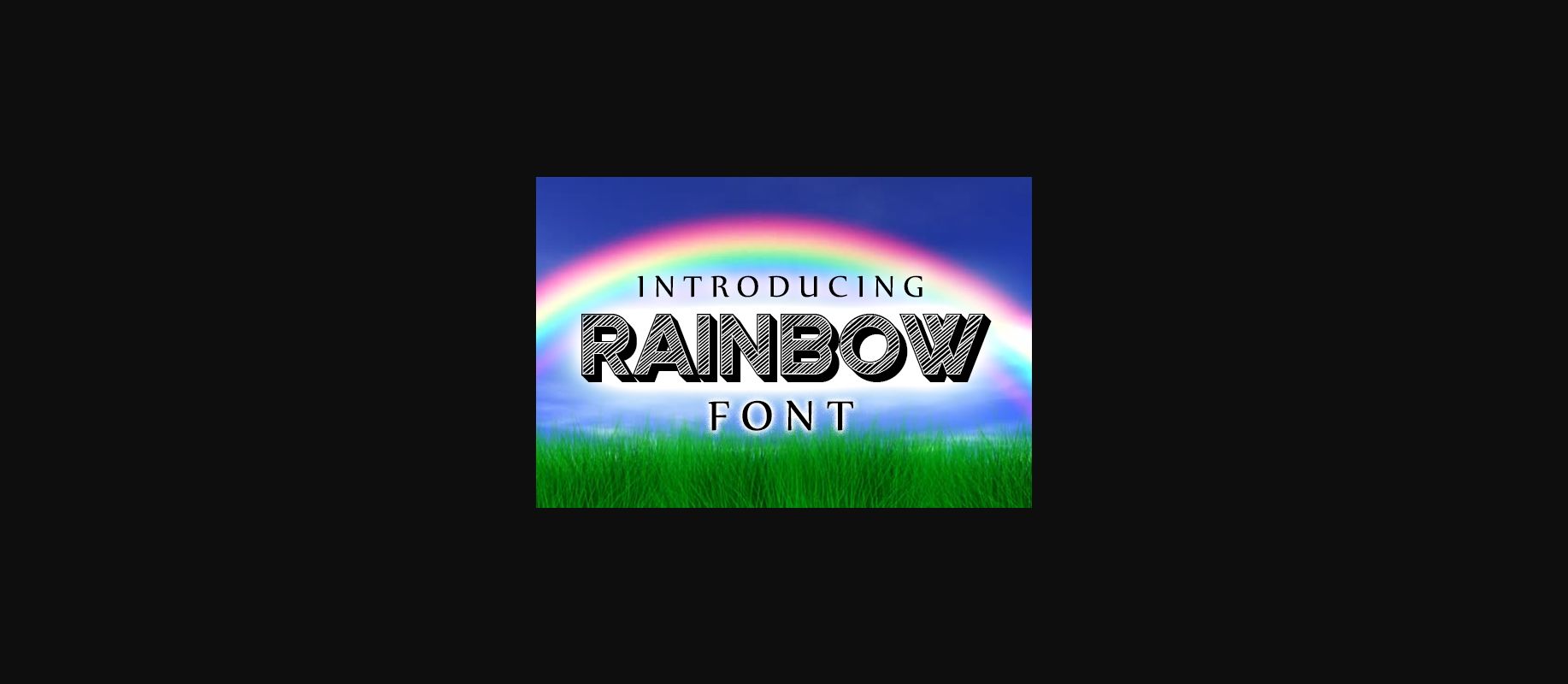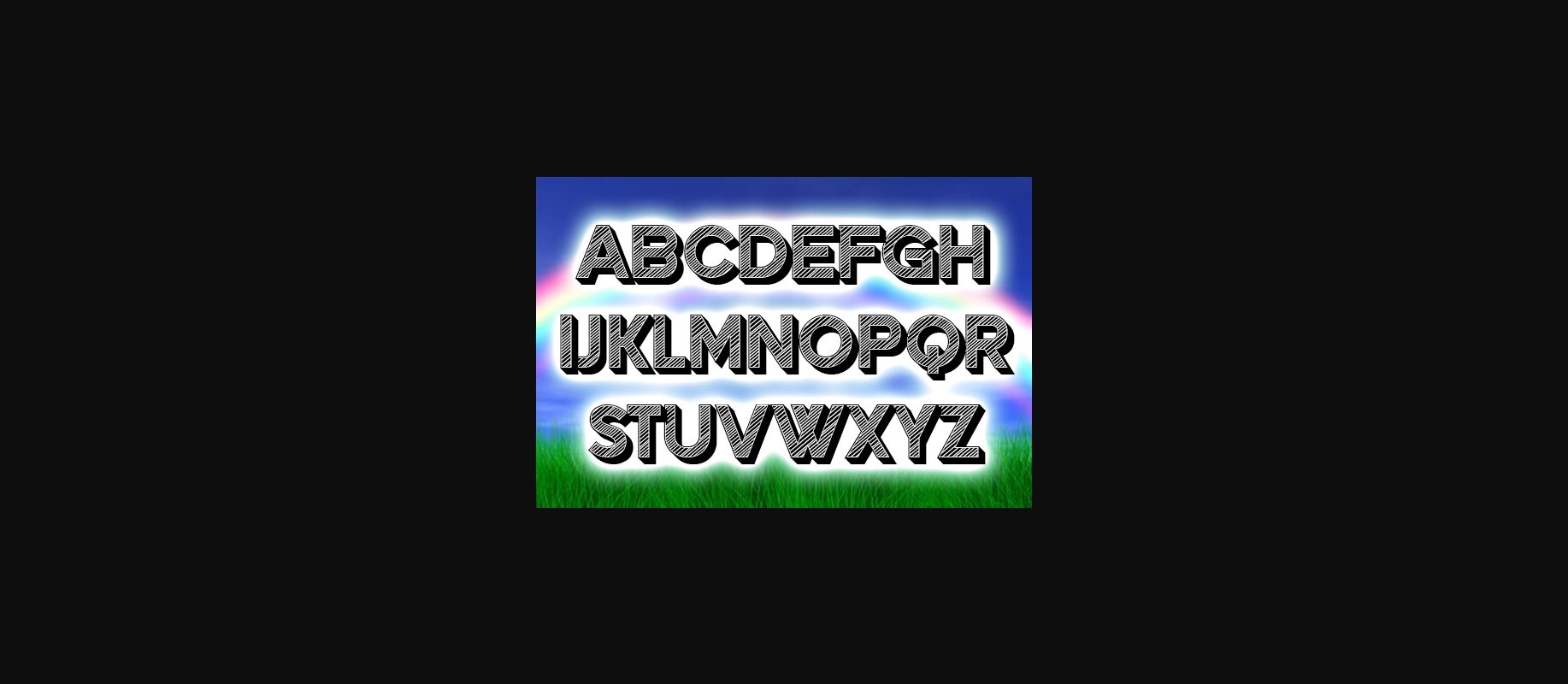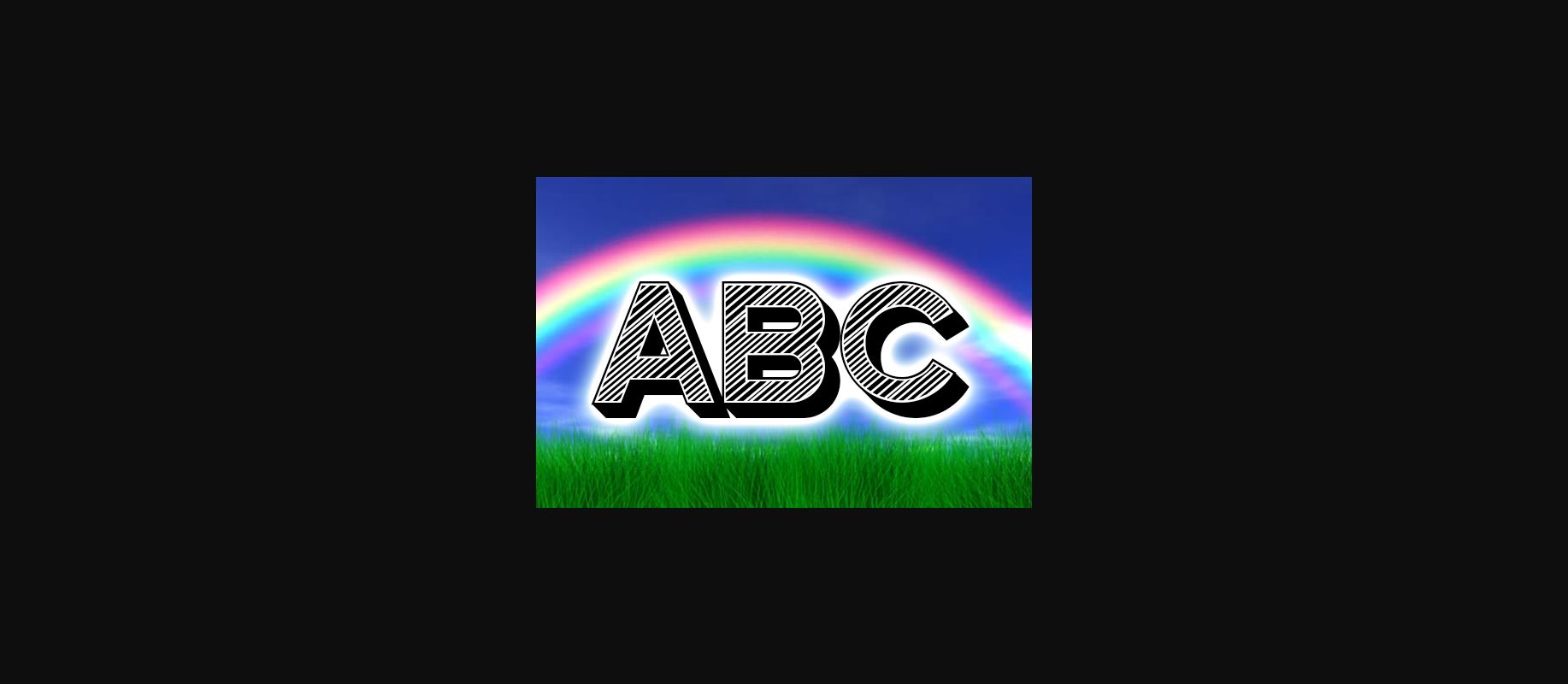
Rainbow Font
About Rainbow Font
Rainbow is a superb decorative font that will give your designs a polished look.
Have fun with this amazing font and create stunning designs!